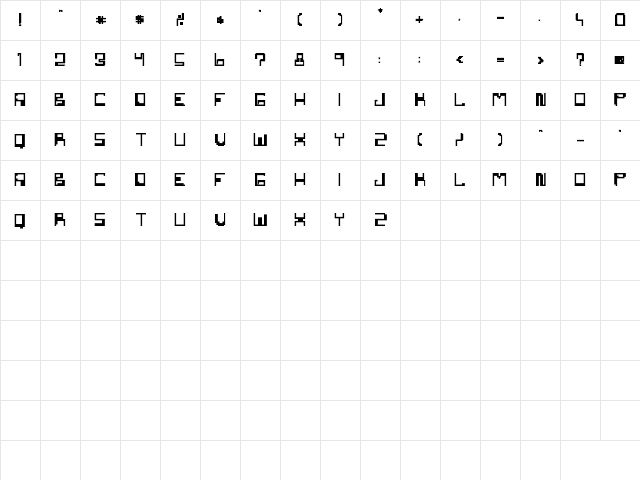
nemesis_erc_2007 Regular
| Foundry | Eric Wiryanata |
| Designer | Eric Wiryanata |
Design Context for nemesis_erc_2007 Typeface
nemesis_erc_2007 takes a measured approach to typography — its balanced proportions and neutral character make it a reliable workhorse for both digital and print work.